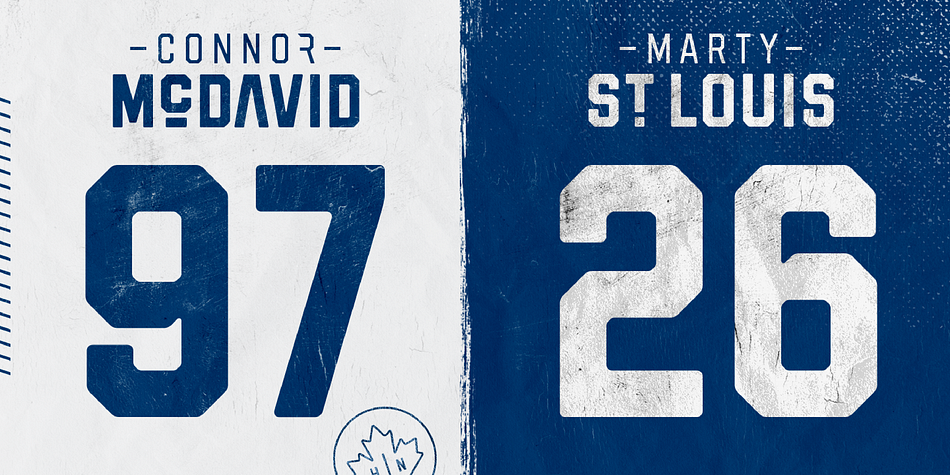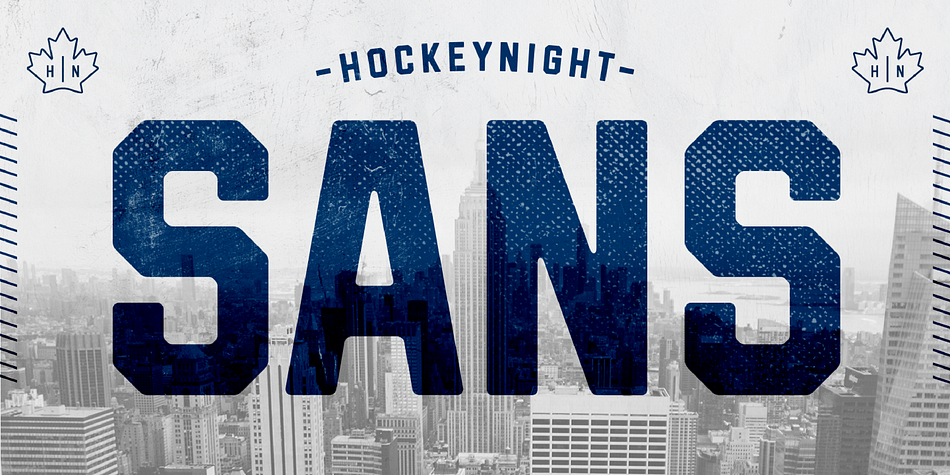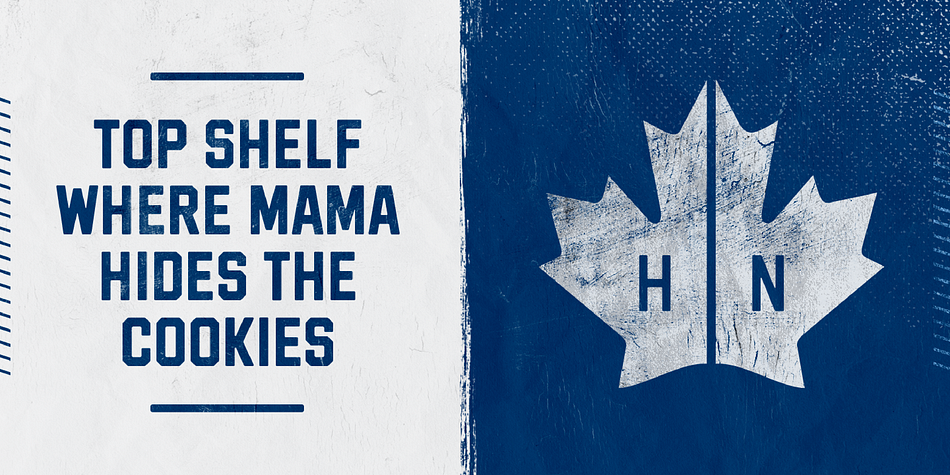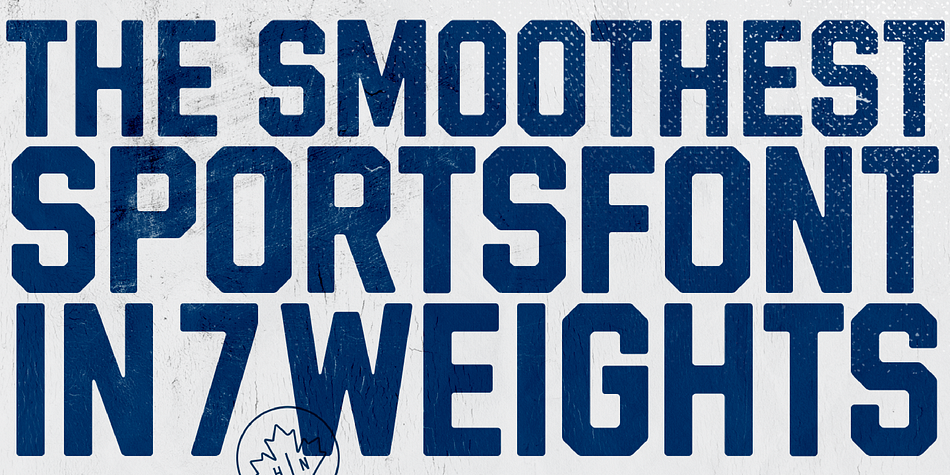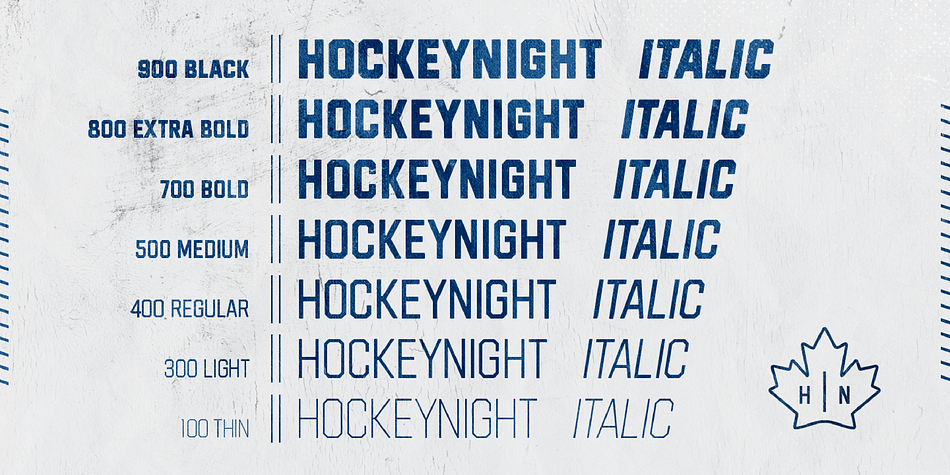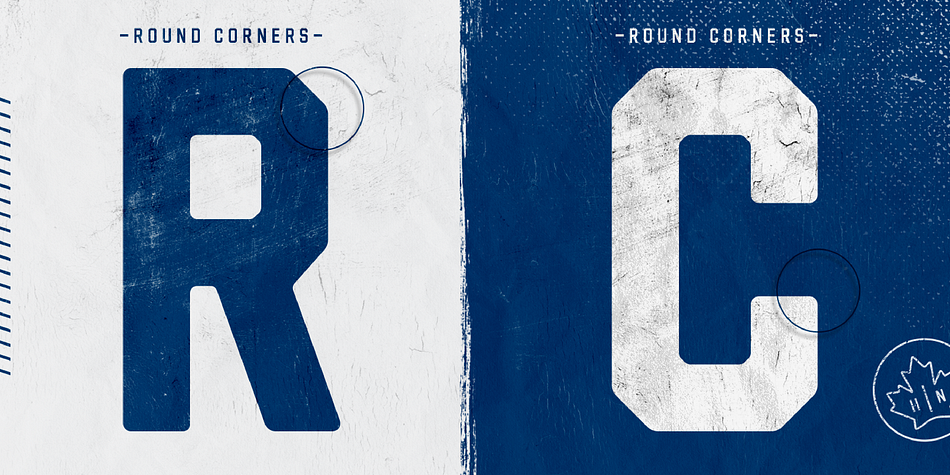
Designed by Christoph Zeugswetter, Hockeynight Sans is a display sans font family. This typeface has fourteen styles and was published by xtoph.
Hockeynight with its rounded corners is the smoothest sports-font you will find. It’s the helvetica under the college-fonts.
Hockeynight comes in 7 weights and each one is available in italics.
Spice up your designs and mix in some alternate glyphs! Go big and bold on your sports-poster or space it up for that dirty style!
Check out the alternate glyphs if you are looking for ideas for your logodesign!